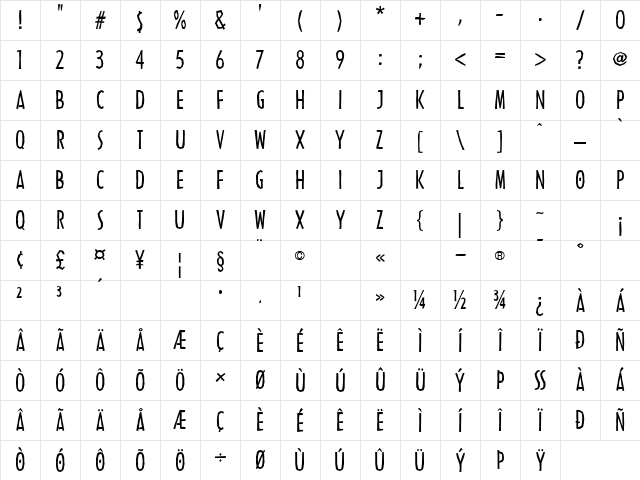
LTNordica Regular Free Font
LTNordica Regular
Design Context for LTNordica
LTNordica is a composed and adaptable typeface that performs quietly and consistently across a wide range of design contexts.